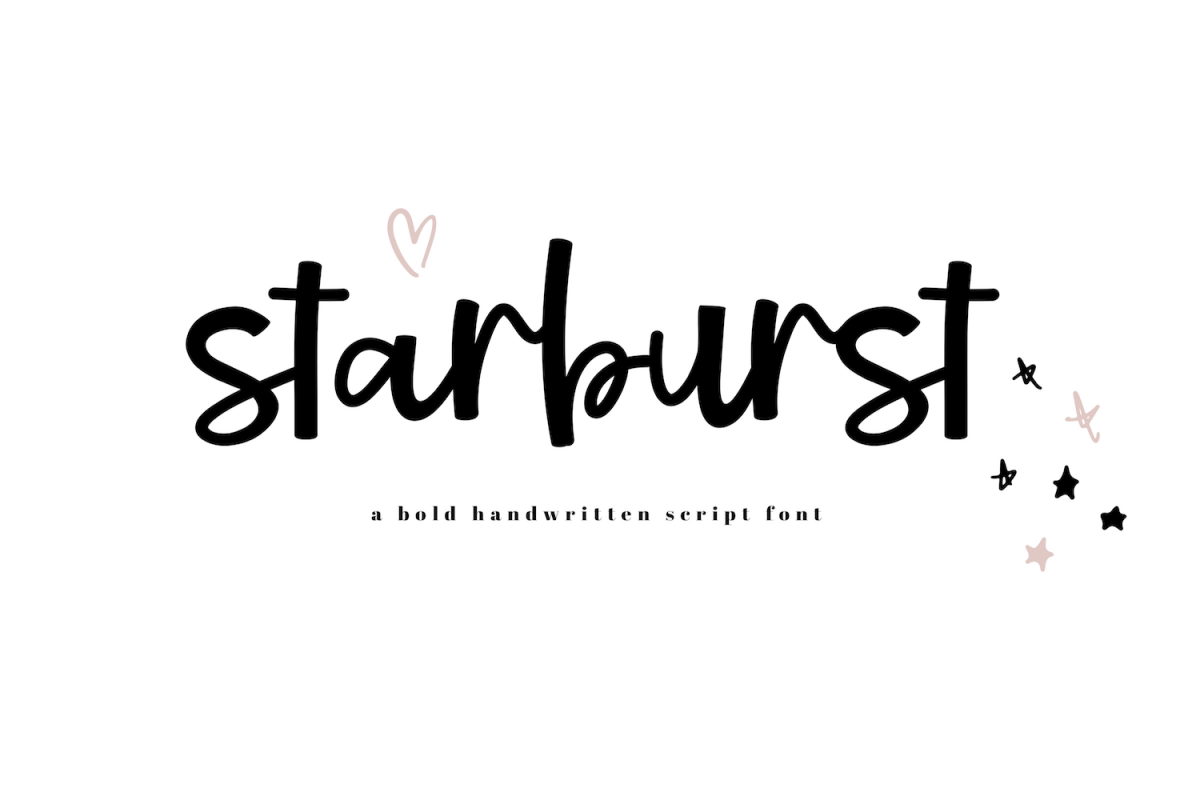
Starburst - A Bold Script Font
Starburst
Starburst is a bold handwritten script font.
This font is perfect for quotes, headings, designs, logos, invitations and more!
This font *does* include accent characters.